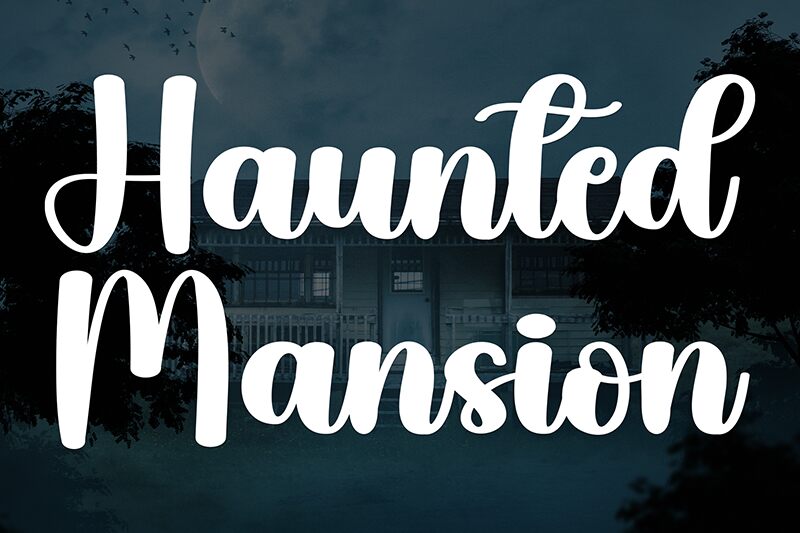
Haunted Mansion
Haunted Mansion font by Scratchones is a bold brush font with an elegant script style and vintage influence. It is delicate, yet very impacting with its uses. The design comes with several decorative elements that further enhance the appearance of each letter within titles, subtitles, and other textual segments.